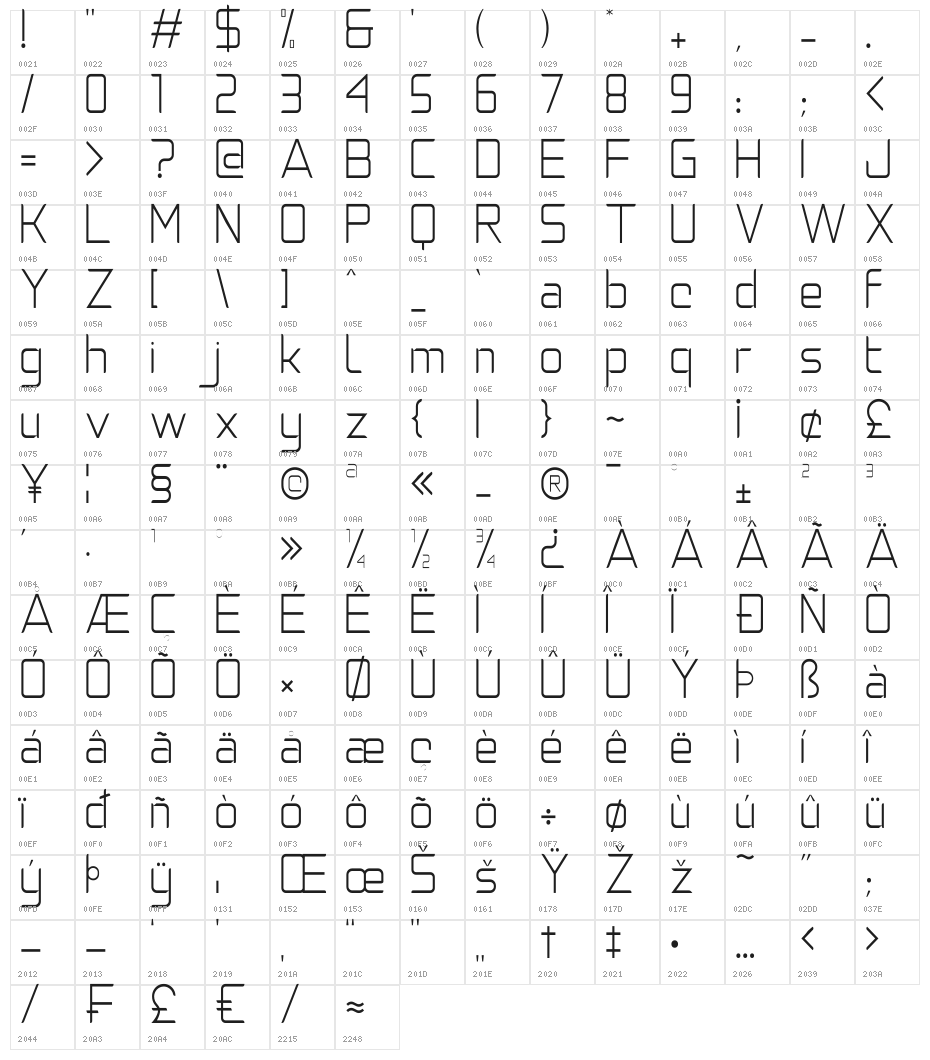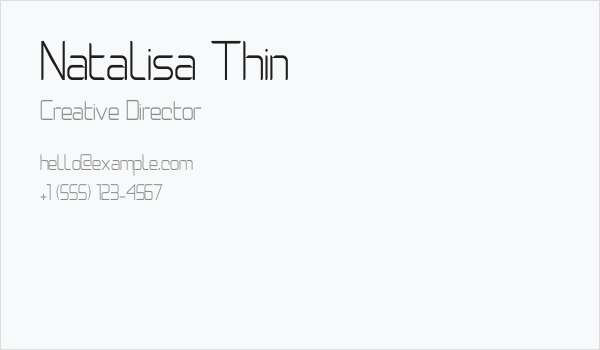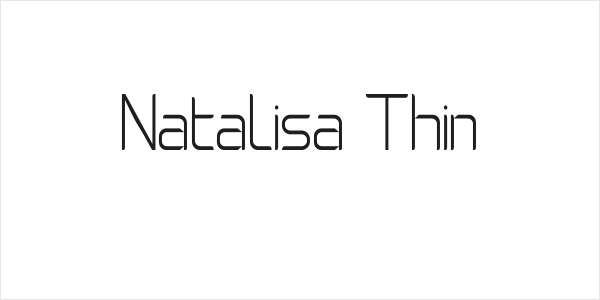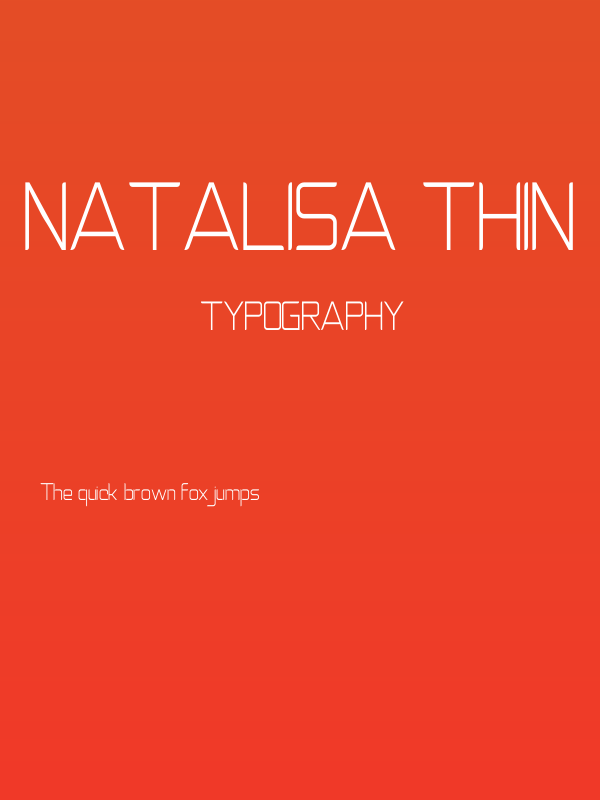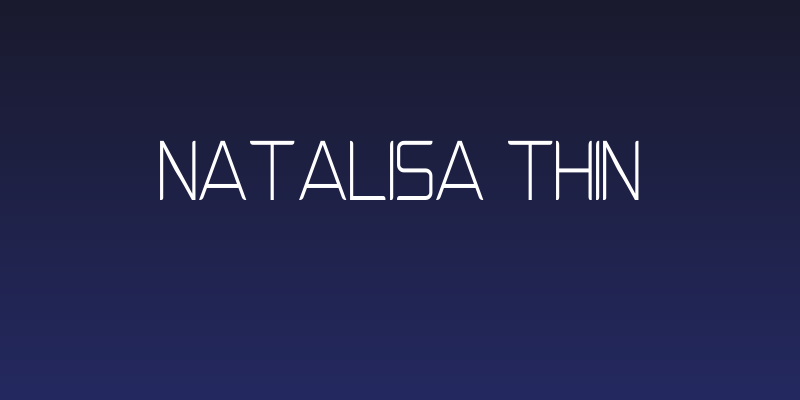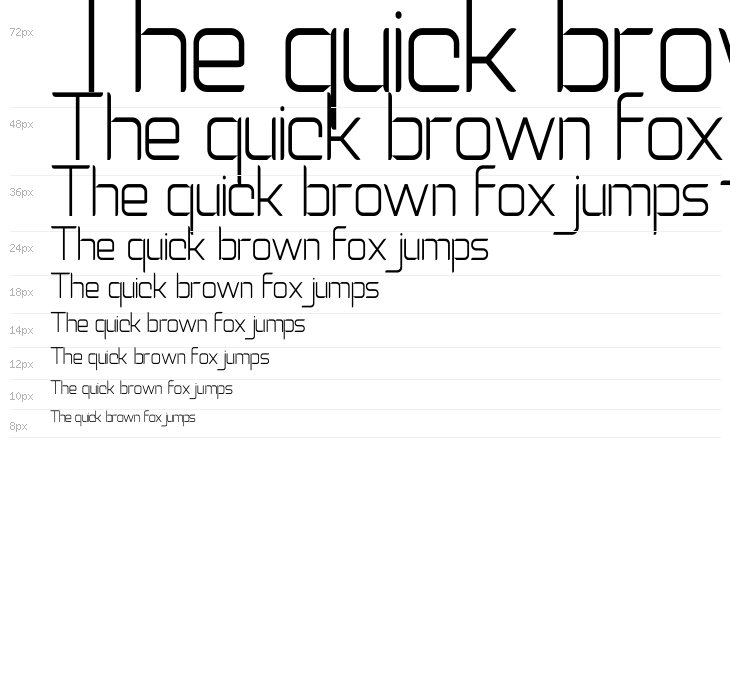
Natalisa Thin Font
Natalisa Thin Description
This font features a sleek, modern design with a thin, geometric structure. The characters are crafted with precision, showcasing clean lines and a minimalist aesthetic. The uppercase letters are tall and narrow, while the lowercase letters maintain a consistent height, creating a harmonious balance. The numerals are distinct and easily readable, with a uniform width that complements the overall style. Special characters are designed with the same attention to detail, ensuring they integrate seamlessly with the rest of the font. This typeface is ideal for projects that require a contemporary and sophisticated look.
Natalisa
| Proposed Projects | Ideal for branding, editorial design, digital interfaces, and modern advertising campaigns. |